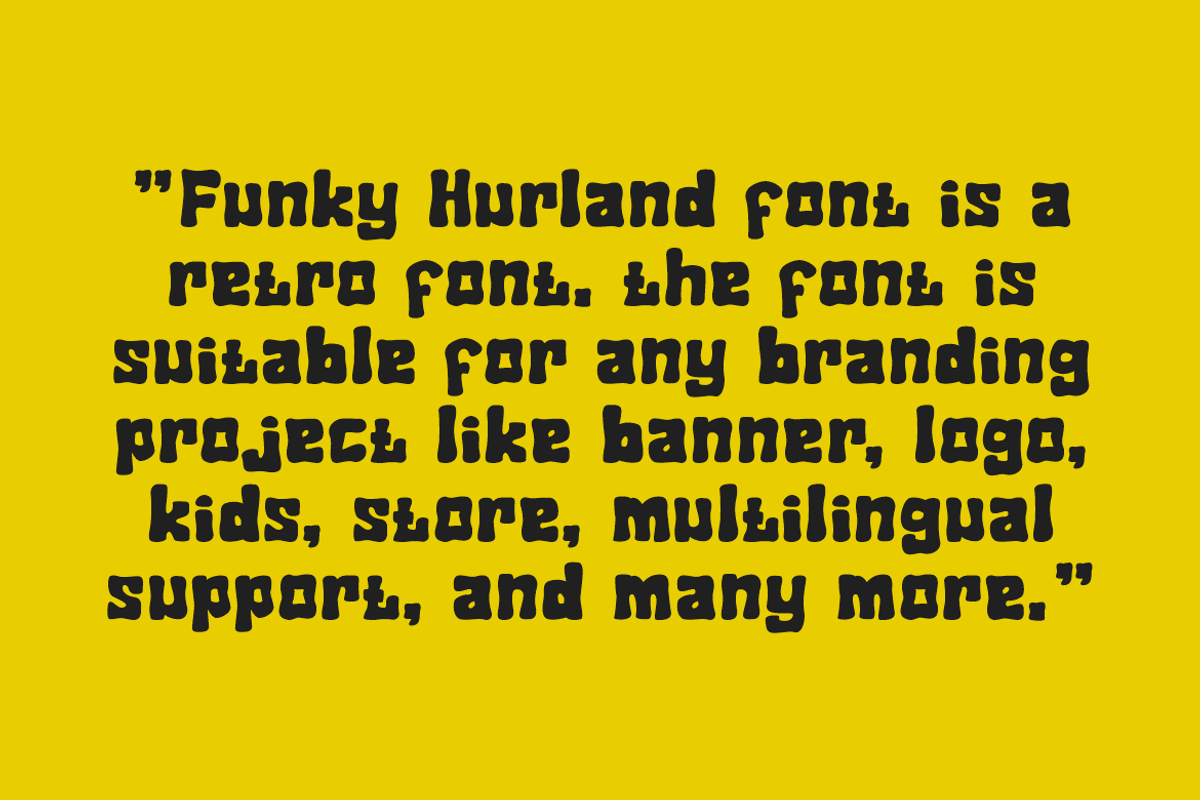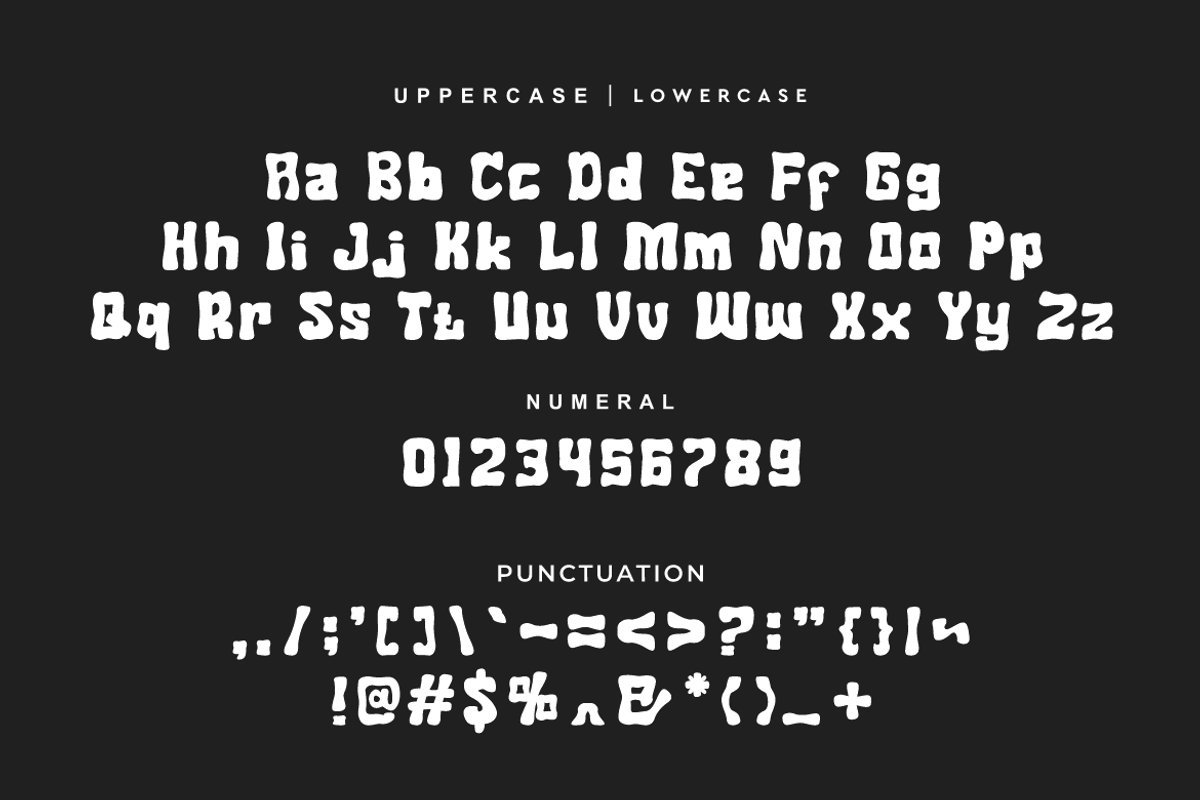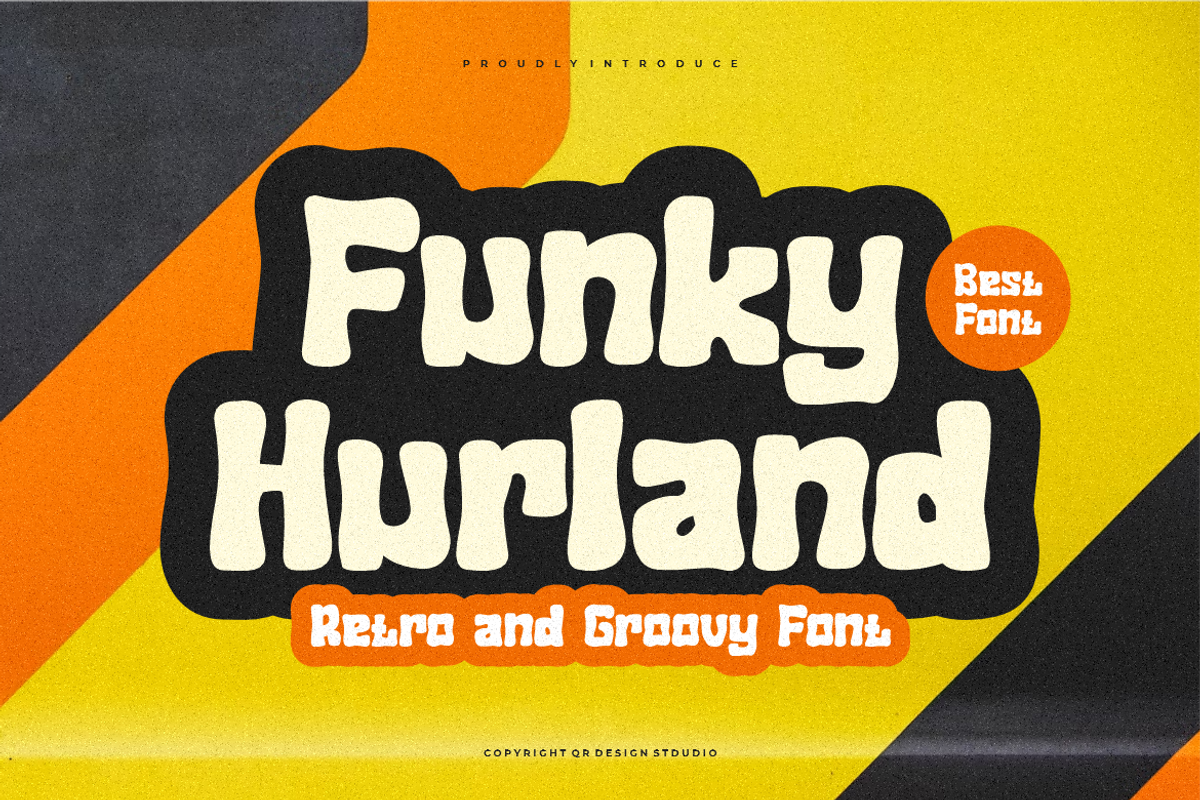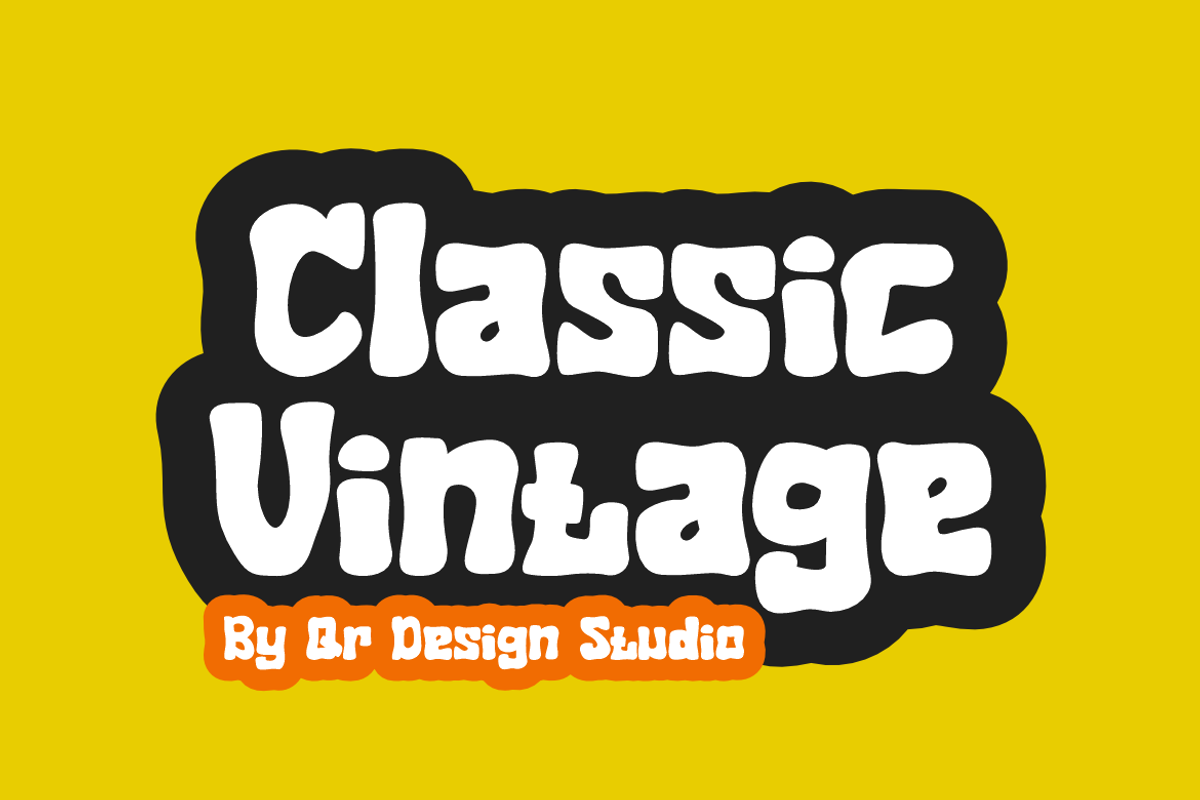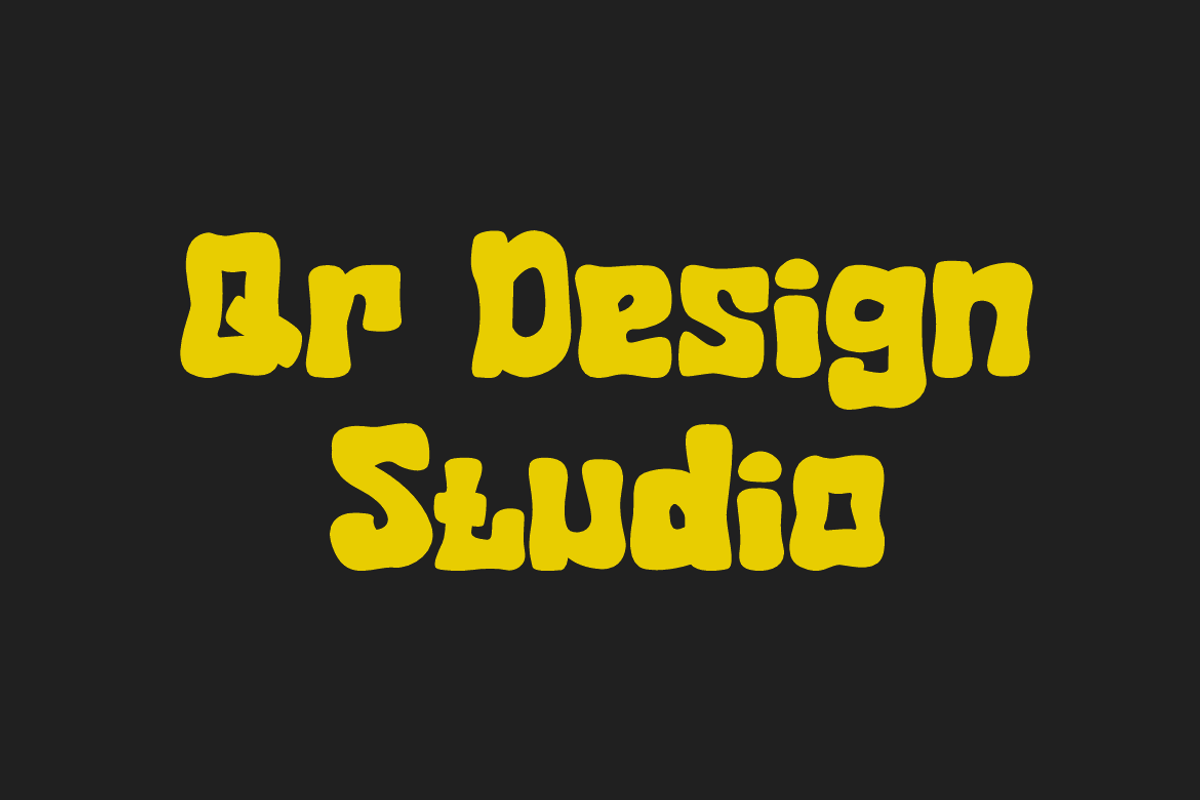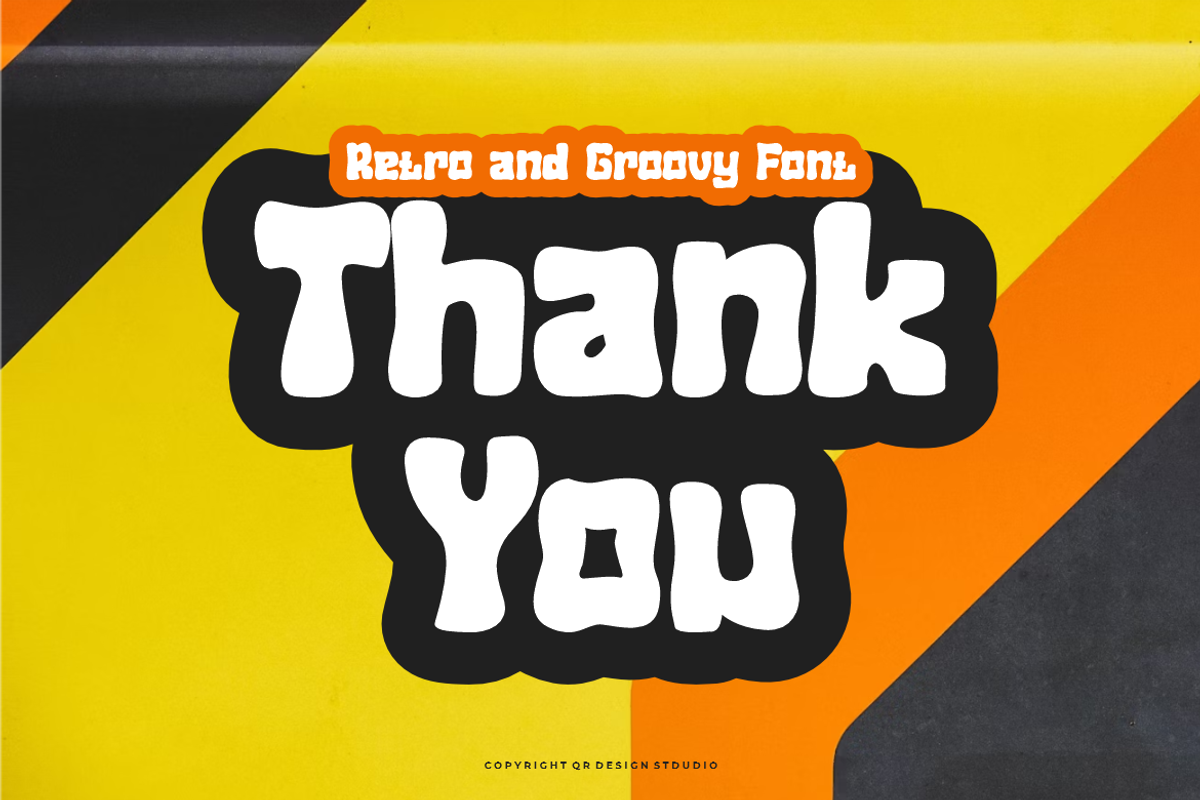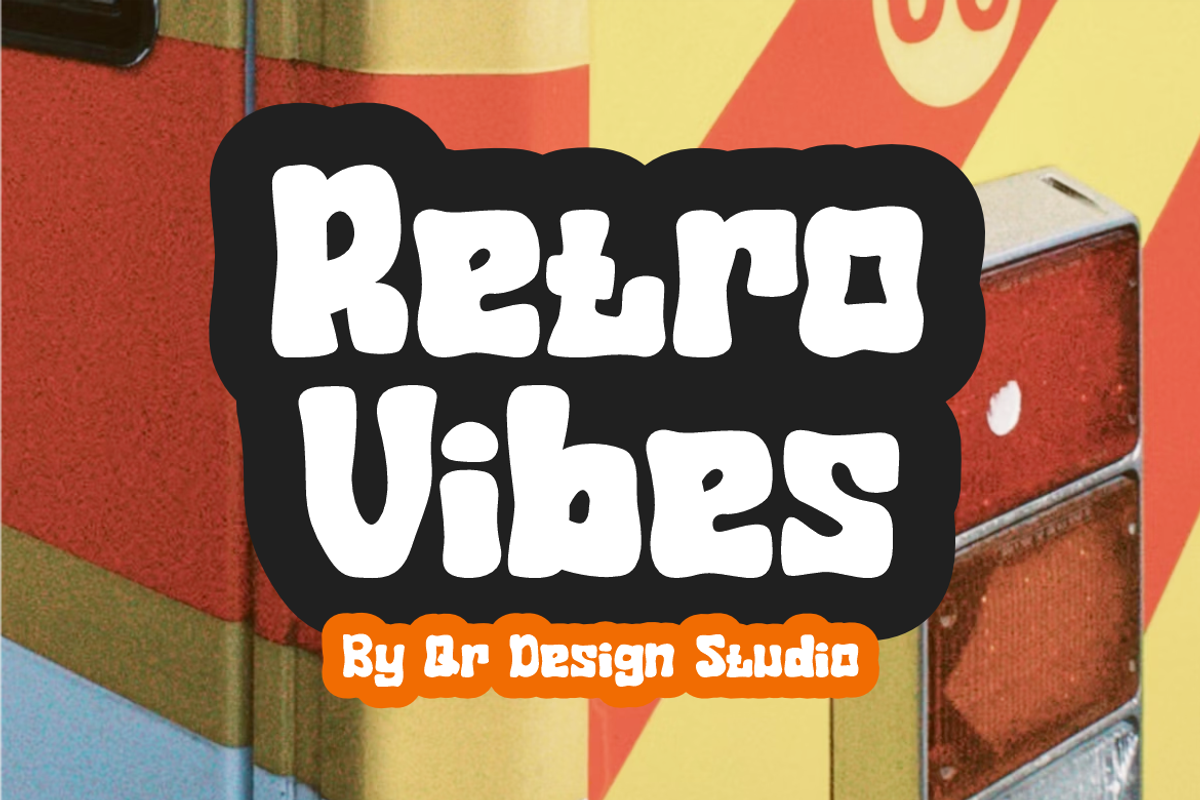
Funky Hurland - Retro & Groovy Font
Funky Hurland Font is a retro and authentic display font. The font is suitable for any branding project like poster, logo, sport, and many more. Outstanding in a wide range of contexts.